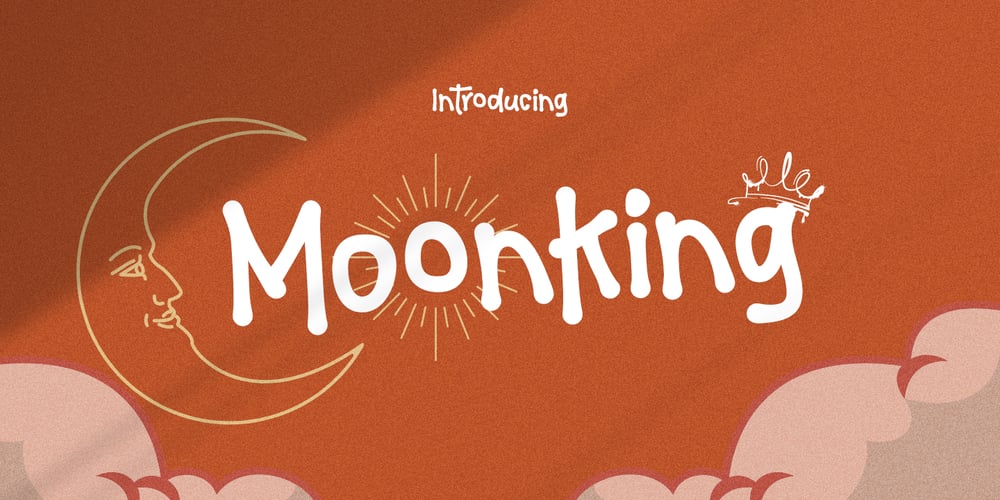
Moonking Font Family was designed by Jarnawi Saja and published by Grontype. Moonking contains 1 styles and family package options. Introducing Moonking. This font is a captivating handwritten typeface that evokes the nostalgic charm of writing with a board marker. Its distinctive style captures the fluidity and spontaneity of hand-drawn lettering, imbuing your designs with a sense of warmth and authenticity.What sets “Moonking” apart is its collection of unique ligatures and alternates, which add a touch of creativity and versatility to your typographic compositions. The ligatures seamlessly blend characters together, enhancing readability and lending a natural flow to your text. Meanwhile, the alternates offer variations in letterforms, allowing you to experiment with different looks and tailor the font to suit your design needs.Features: Unique Regular Handwriting Font Uppercase & Lowercase Basic Latin Glyphs Multilingual Support Numeral and Punctuation Ligatures & Alternates Thankyou for picking up this font, hope you enjoy it.Regard. Grontype